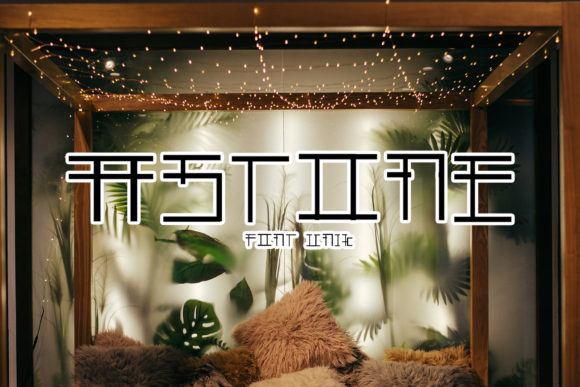
The Astone Font: A Hidden Gem for Creative Projects
I’ll never forget the time I was working on a design project for a client who wanted a unique and modern look. I had spent hours browsing through font libraries, but nothing seemed to fit the bill. That’s when I stumbled upon the Astone font. Its sleek, thin lines and original design caught my eye, and I knew I had found the perfect fit. In this article, I’ll share my experience with the Astone font, its features, and how to make the most of it in your creative projects.
A Personal Review of Astone Font
So, what do I love about the Astone font? Here are a few things that make it stand out:
- ✨ Unique design: Astone has a distinct, atypical style that sets it apart from other fonts.
- ✅ Readability: Despite its thin lines, Astone is surprisingly readable, even at smaller sizes.
- 💡 Versatility: This font can be used in a variety of design projects, from posters to websites.
Of course, no font is perfect, and Astone has a few quirks:
- 🤔 Limited use in body text: While Astone is great for headings and titles, it may not be the best choice for longer blocks of text.
- ⚠️ Glyph support: Some users have reported issues with certain glyphs not displaying correctly.
- Take advantage of OpenType features like glyphs and stylistic alternates to add more personality to your text.
The Story Behind Astone Font
While the origins of Astone font are shrouded in mystery, it’s clear that the designer had a passion for creating unique and original typography. The result is a font that’s both stylish and versatile.
| Font Name | Astone Font |
| Author | Roni Studio |
| What is the best use for Astone font? | Astone is ideal for display text, headings, and titles, where its unique design and readability can shine. |